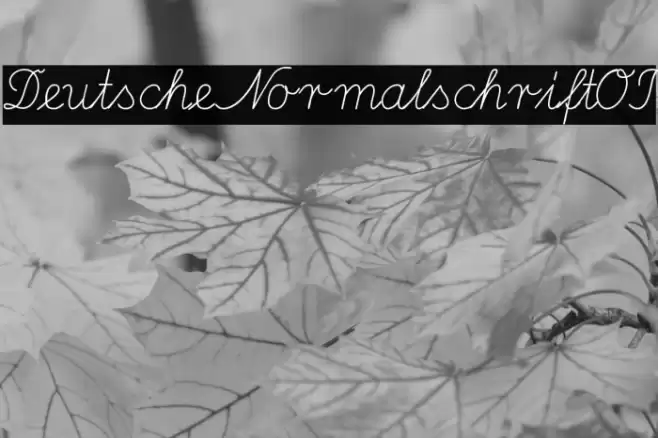
DeutscheNormalschriftOT Font
DeutscheNormalschriftOT Description
This font features a classic cursive style with elegant, flowing lines that connect each letter seamlessly. The uppercase letters exhibit a graceful looped design, while the lowercase letters maintain a consistent, fluid motion. The numbers are designed with a similar cursive flair, ensuring a cohesive look throughout. Special characters are integrated smoothly, maintaining the overall aesthetic. The font's delicate strokes and consistent slant give it a sophisticated and timeless appearance, making it suitable for formal and decorative uses.
A classic cursive font with elegant, flowing lines and a sophisticated style from Uncategorized fonts.
- Proposed Projects: Ideal for wedding invitations, elegant branding, personal stationery, and decorative signage.
- Overall Style: Classic
- Use Case: Logos, Invitations, Decorative text